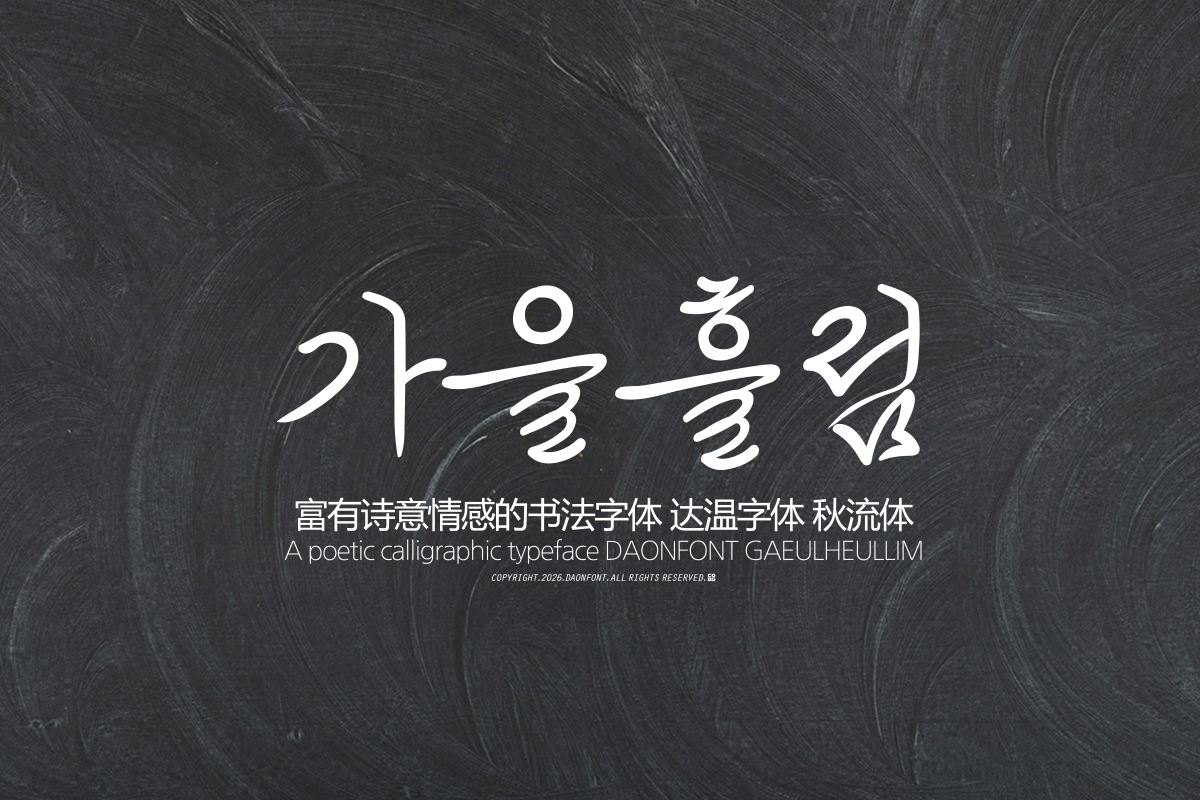
DAON GAEULHEULLIM(B)
'GAEULHEULLIM' is a Hangul typeface that captures the flow of brushstrokes that continue naturally like calligraphy. It conveys a calm yet lyrical atmosphere through the harmony of softly connected strokes and the rhythm of negative space, while preserving the unique connection characteristic of the cursive style.